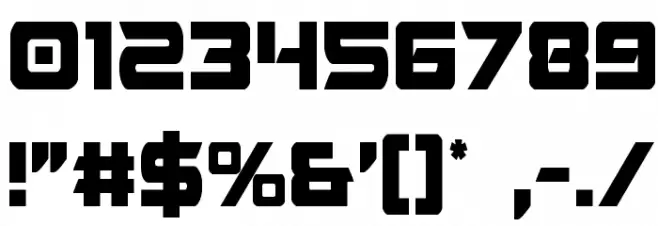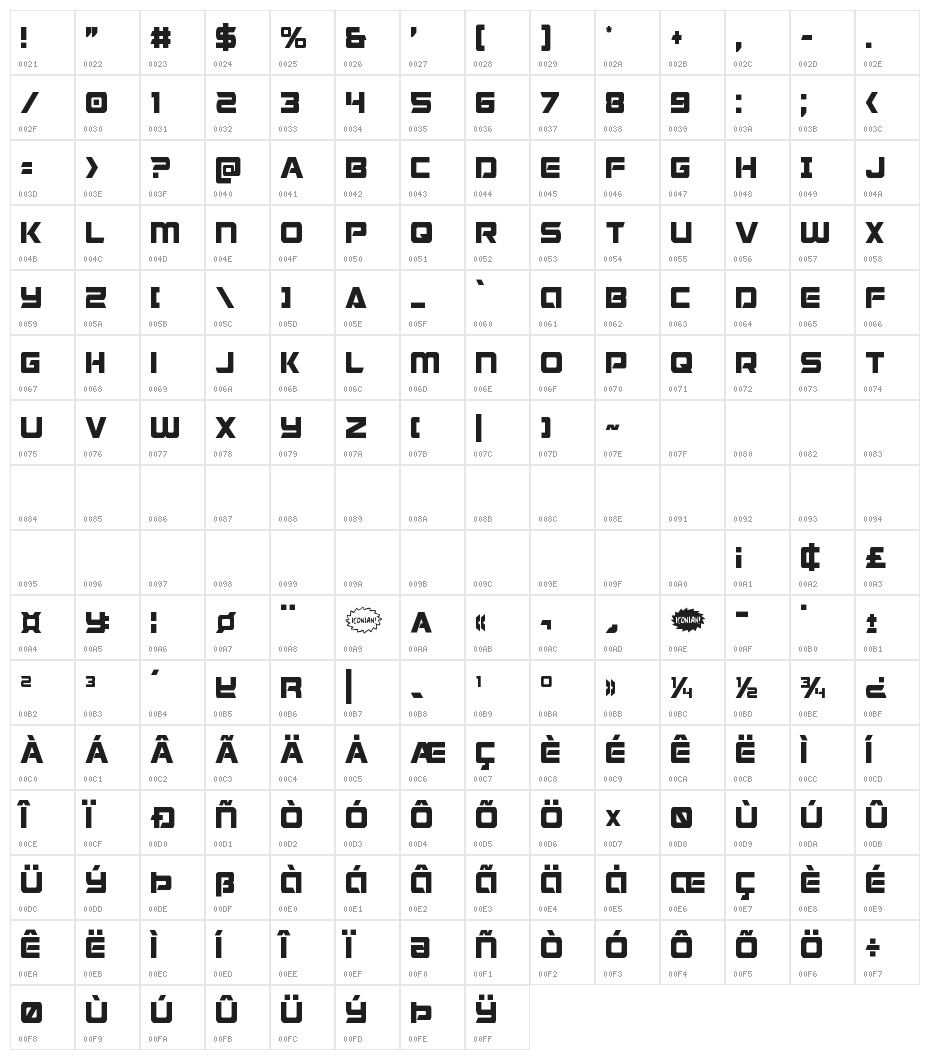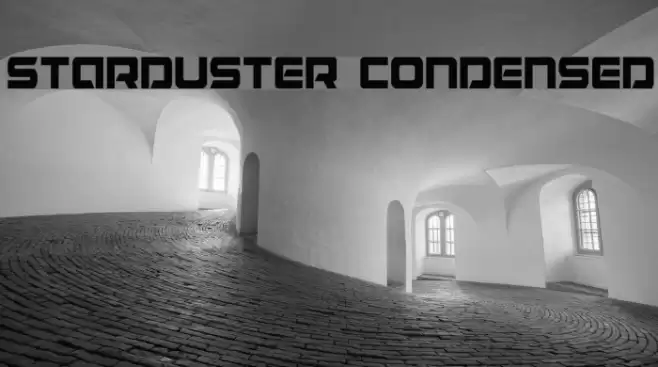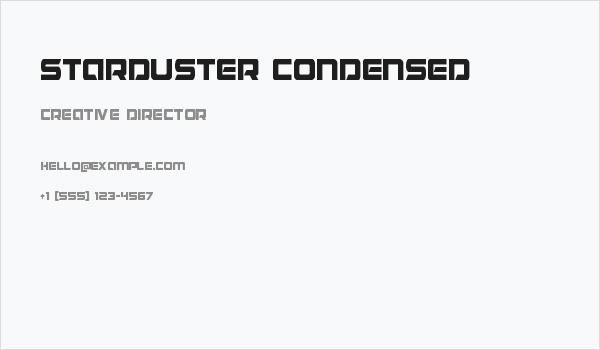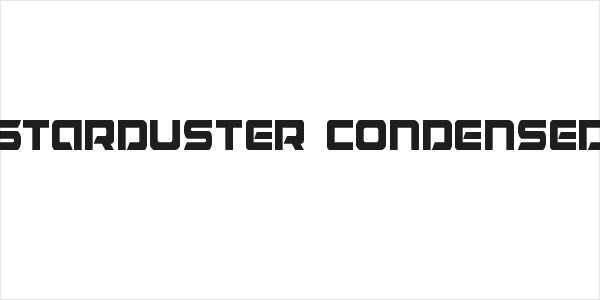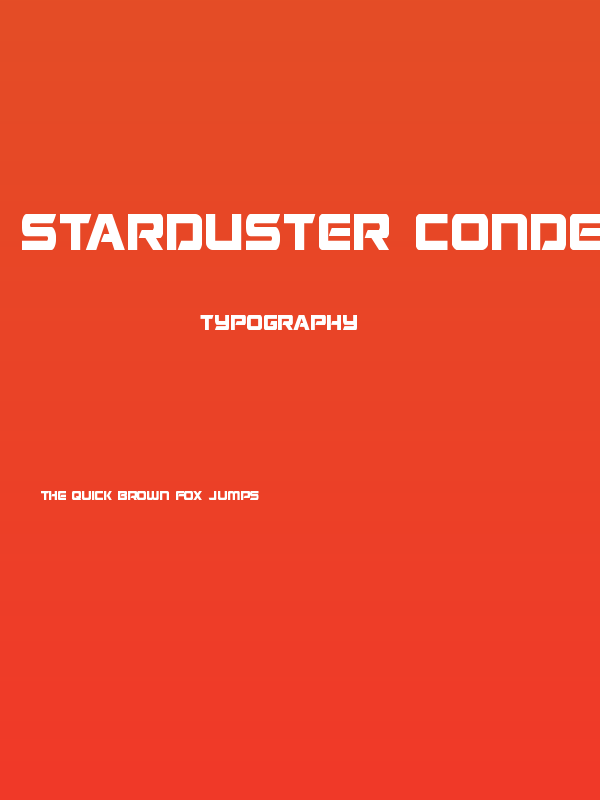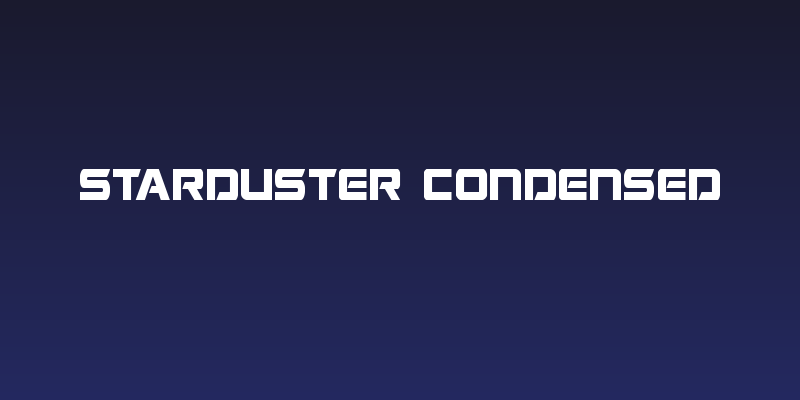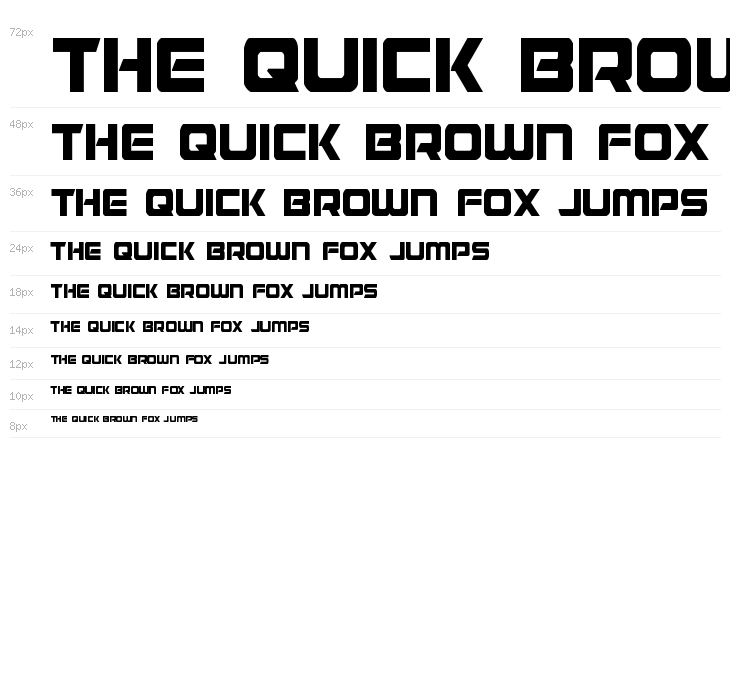
Starduster Condensed Font
Starduster Condensed Description
This font features a bold and futuristic design with a condensed structure, making it ideal for impactful headlines and modern branding. The characters exhibit a geometric style with sharp angles and clean lines, contributing to a sleek and contemporary appearance. The uppercase and lowercase letters maintain a consistent height, enhancing the uniformity and readability of the text. The numerals and special characters are designed to match the overall aesthetic, ensuring a cohesive look across all elements. This font's distinct style is perfect for projects that require a strong visual presence.
| Proposed Projects | Ideal for sci-fi themed designs, modern branding, tech-related projects, and impactful headlines. |